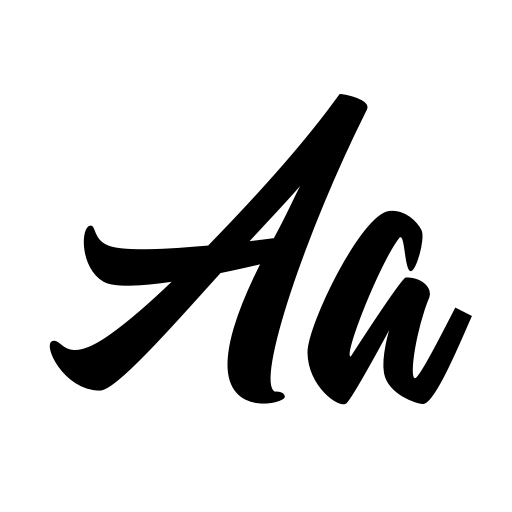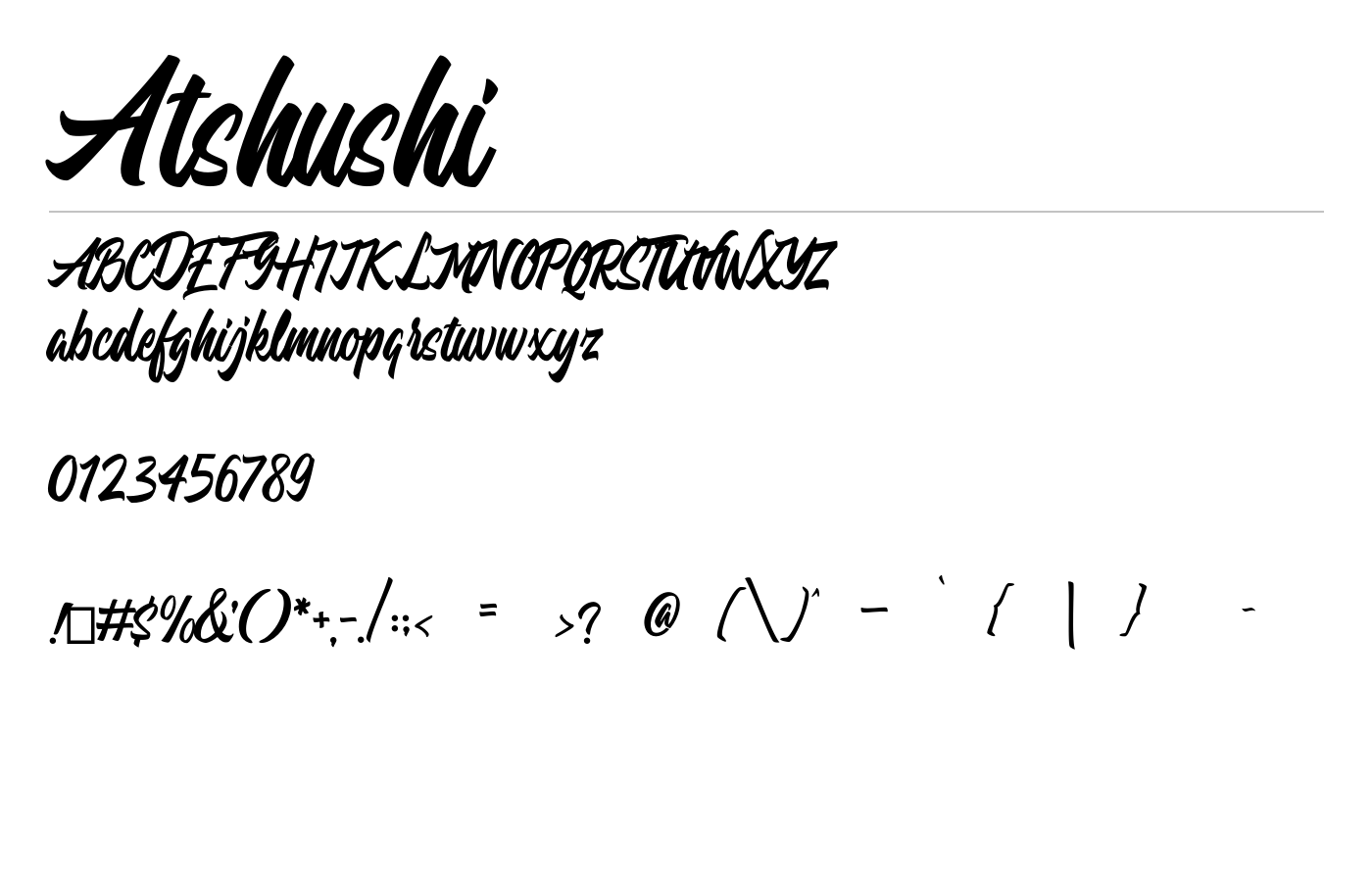
Atshushi is a lively script font with a bold, handwritten feel that combines smooth curves and energetic strokes, giving it a modern yet personal touch. Its dynamic letterforms work well for creative branding, invitations, and headlines where a friendly and expressive style is desired. This font adds a warm, informal vibe while maintaining readability and visual impact.
Atshushi Font